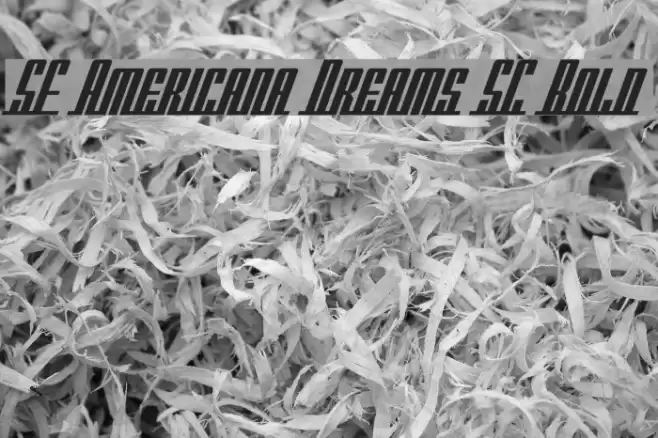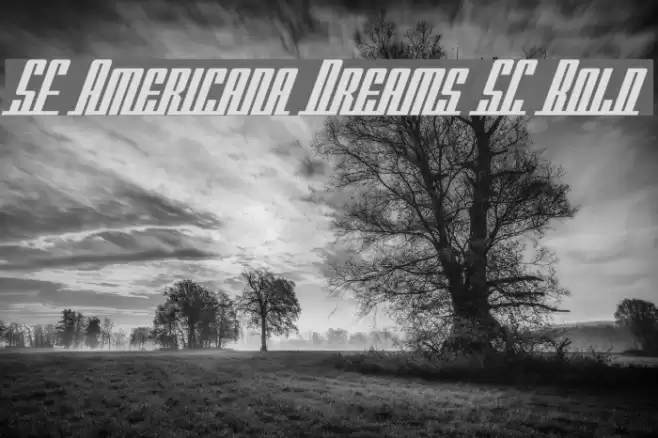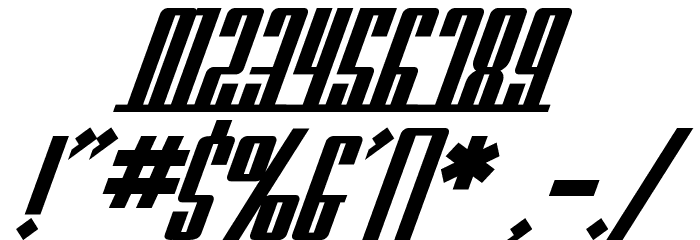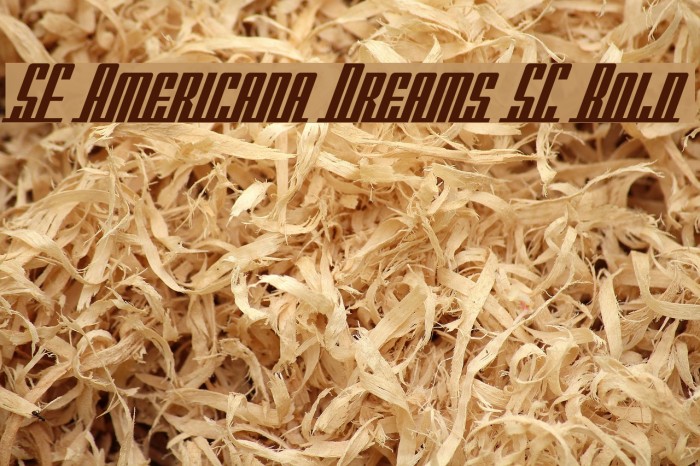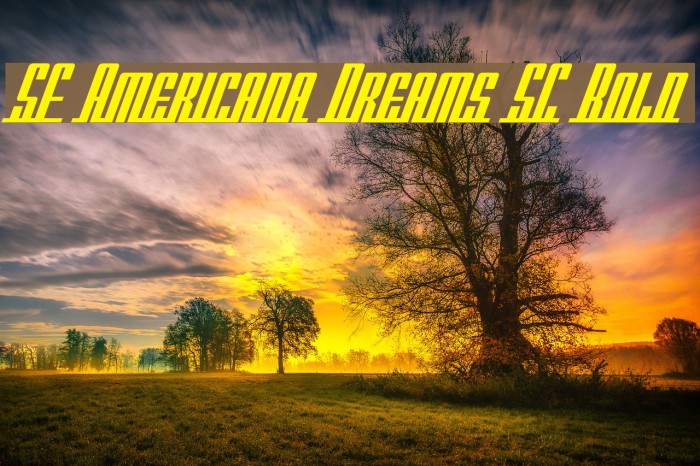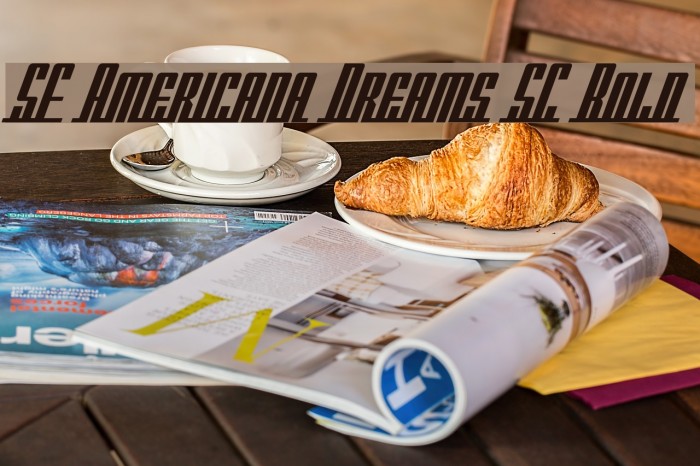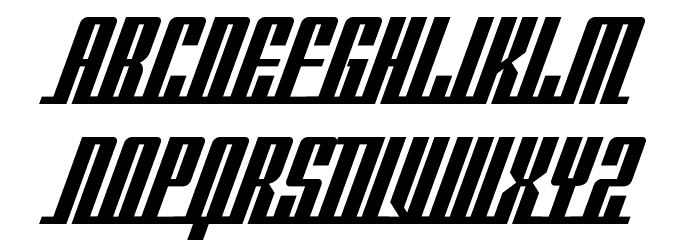
SF Americana Dreams SC Bold Font
SF Americana Dreams SC Bold Description
This font features a bold and dynamic design with a strong emphasis on angular lines and geometric shapes. The characters are slanted, giving a sense of motion and energy, which is further enhanced by the thick, consistent strokes. The uppercase letters are particularly striking, with sharp edges and a futuristic feel. The numbers and special characters maintain the same boldness and angularity, ensuring a cohesive look across all elements. The overall style is modern and assertive, making it suitable for projects that require a strong visual impact.
A bold, angular font with a modern, dynamic style from Retro fonts.
- Proposed Projects: Ideal for branding, sports team logos, posters, and any design needing a bold, energetic typeface.
- Character Spacing: Tight